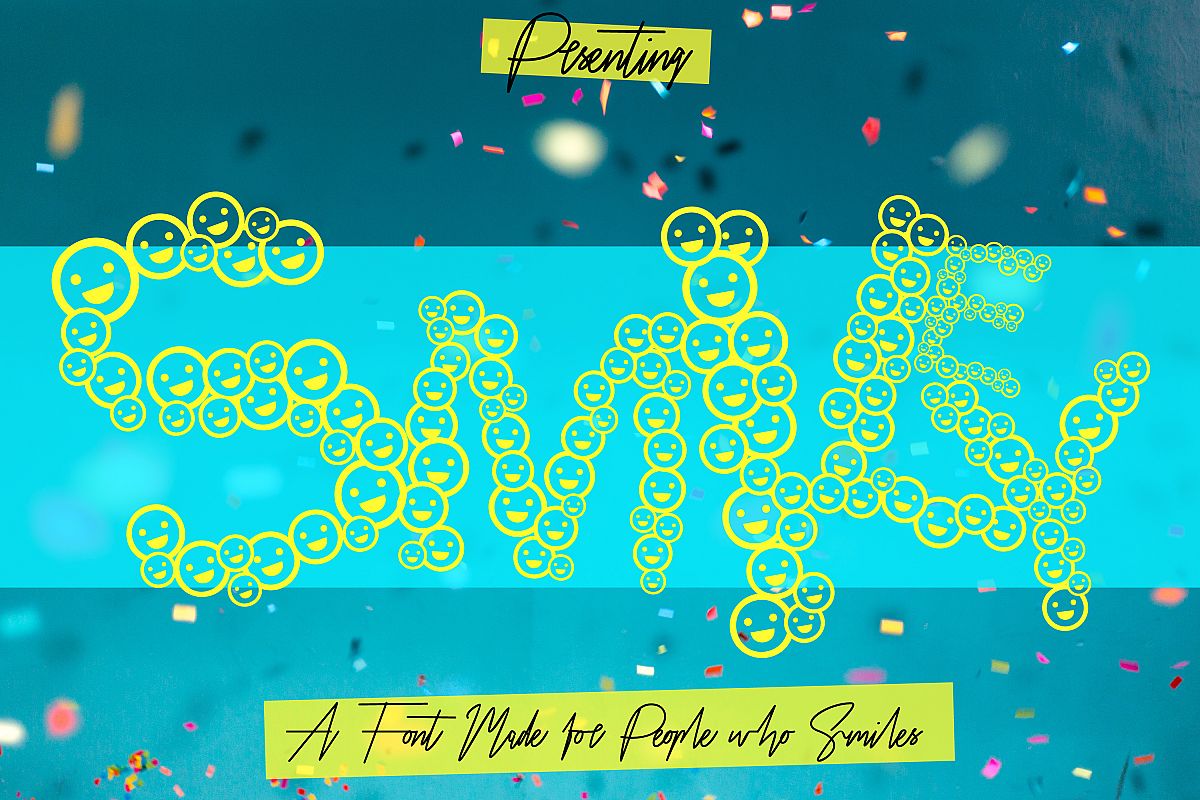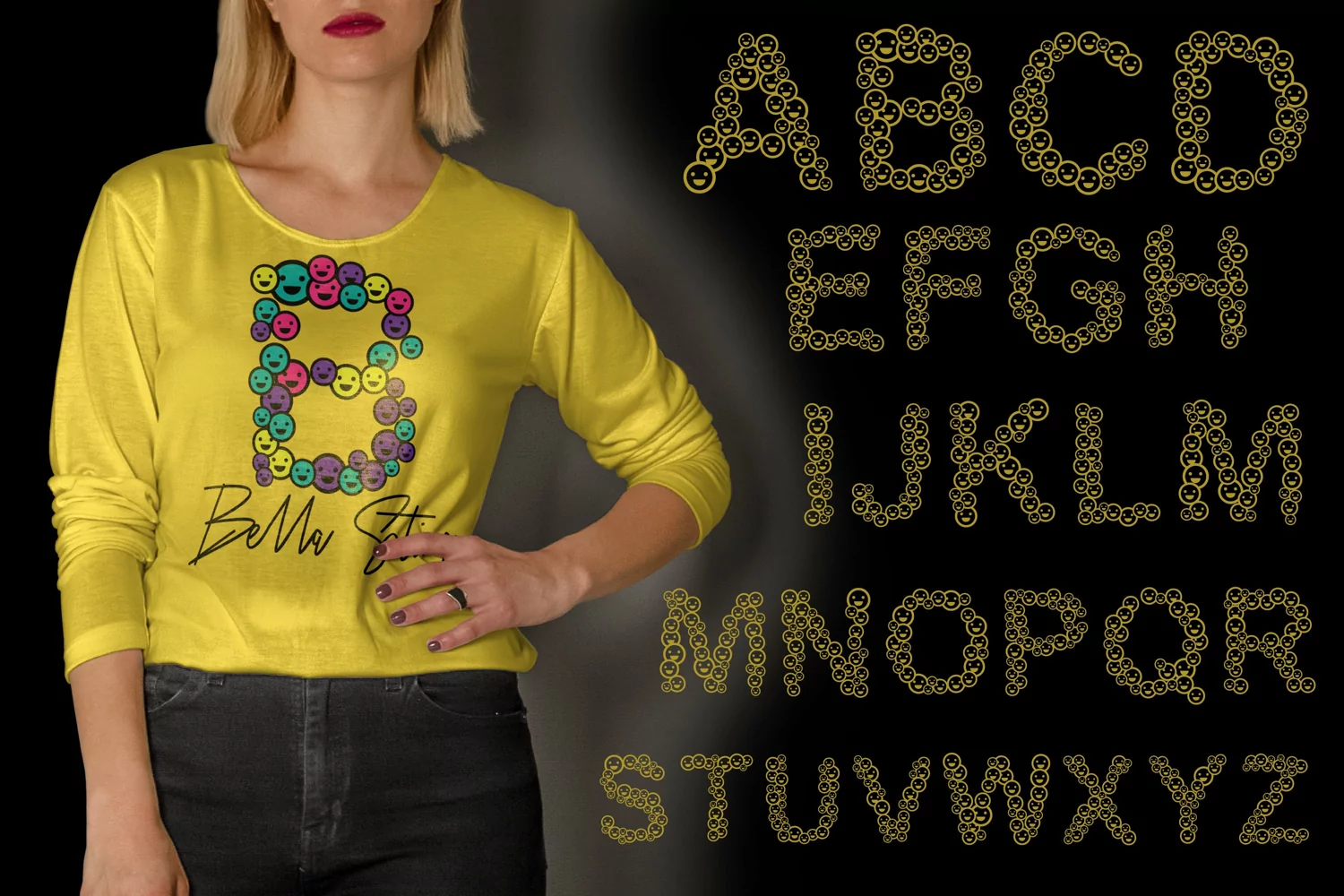
Keep Smiley - Cute Emoji Font for You
Presenting Cute font for you. This Special Paper Cut Keep Smiley Font can be used in tons of projects specially in child and new born projects. You can use it for craft purpose and this will looks great on shirts, printing material and other stuff.
2- UPPER Case only Letters A to Z and 0 to 9
3- Super Cute and Creative